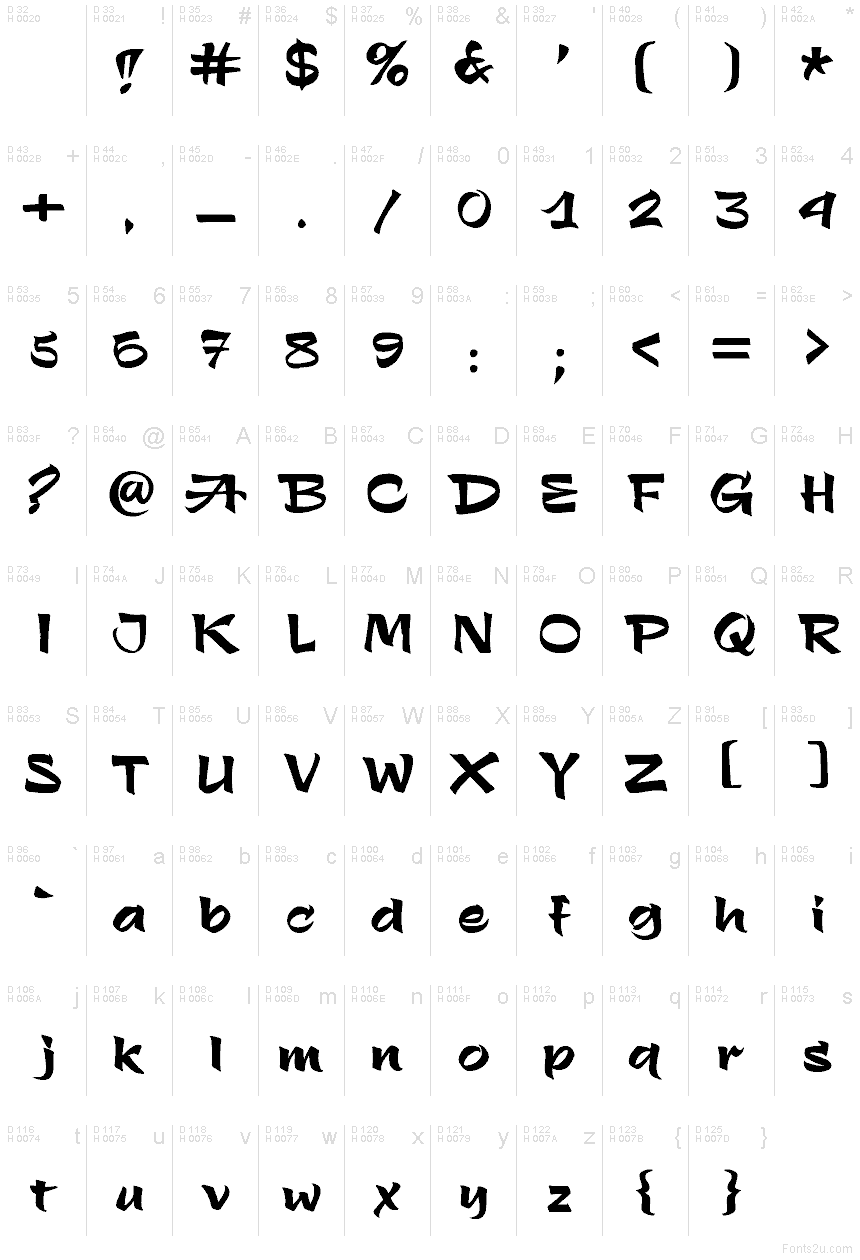
Oriental Chicken font by BlackFridayFont FMF is a free Asian‑inspired brush display typeface. Thick, inky strokes swell and taper like they were pulled from a loaded brush, giving words a flavorful, hand‑painted energy. Letters link with a gentle sway and bold counters that stay readable even at smaller sizes. For balance, pair Oriental Chicken with a plain geometric sans for body copy.
Using Oriental Chicken, headlines snap to attention and carry a warm, crafted feel. It shines on restaurant logos, takeout menus, food truck signage, festival posters, game titles, and bold social promos. This free font’s lively rhythm makes short phrases pop and brand names stick, especially when you give it generous letterspacing and let it breathe.
Oriental Chicken